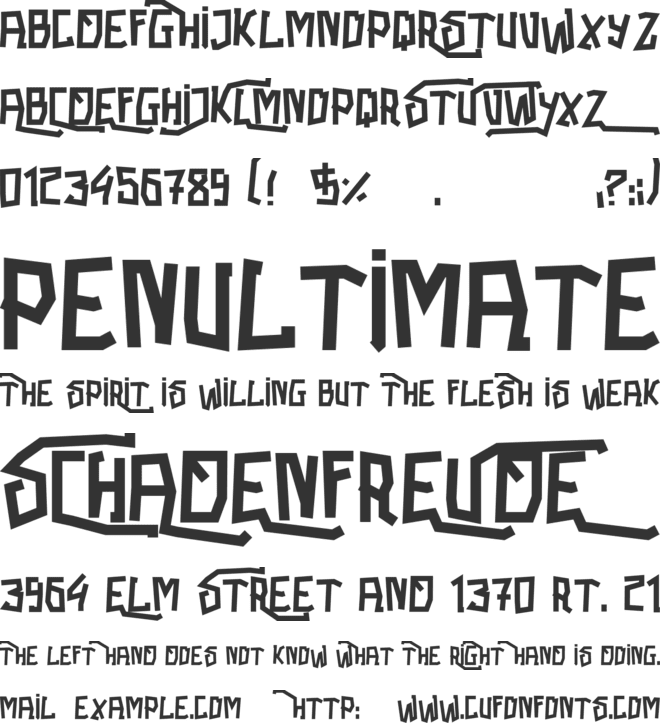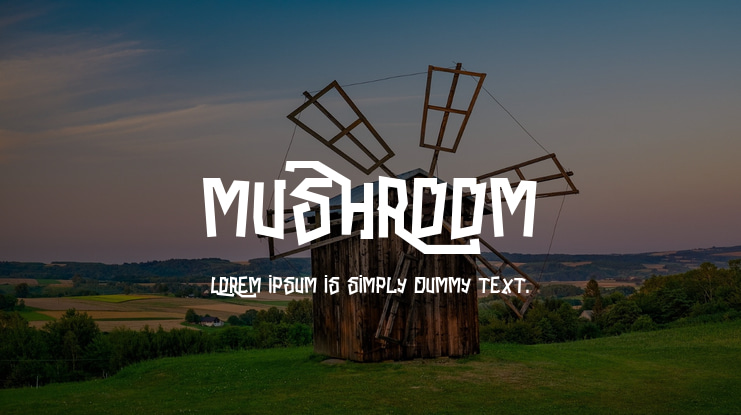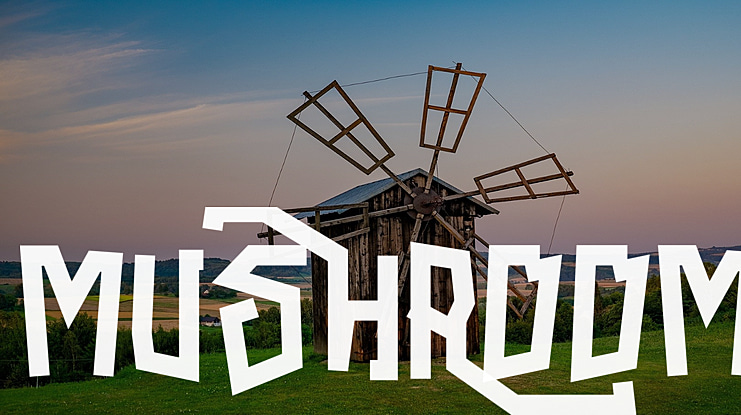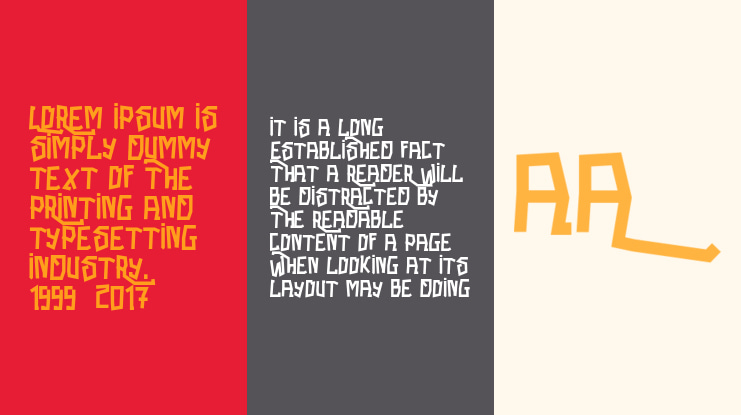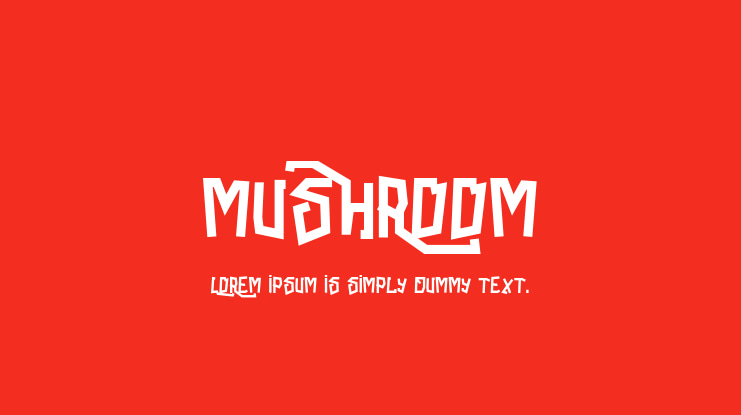
Mushroom Font
Very interesting to use for logos, name tags, handwritten quotes, product packaging, merchandise, social media & greeting cards. Also, ideal to make t-shirts design and other clothing products.